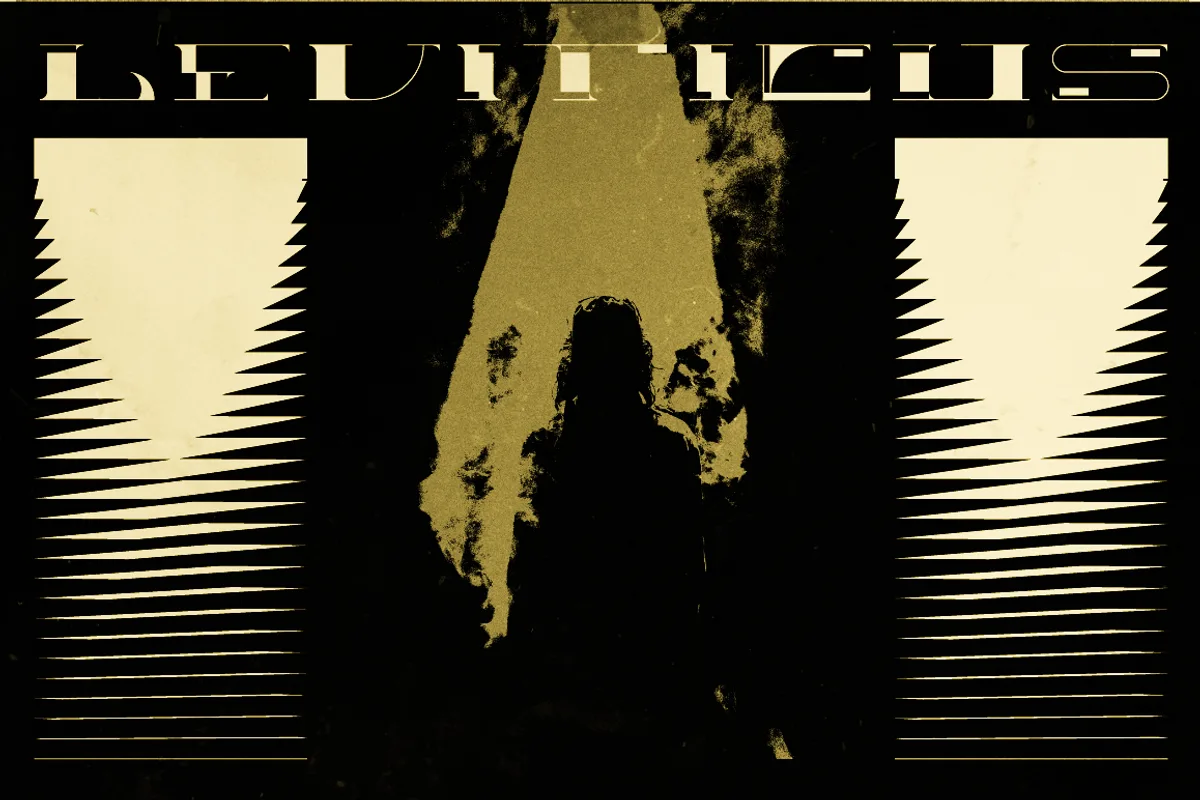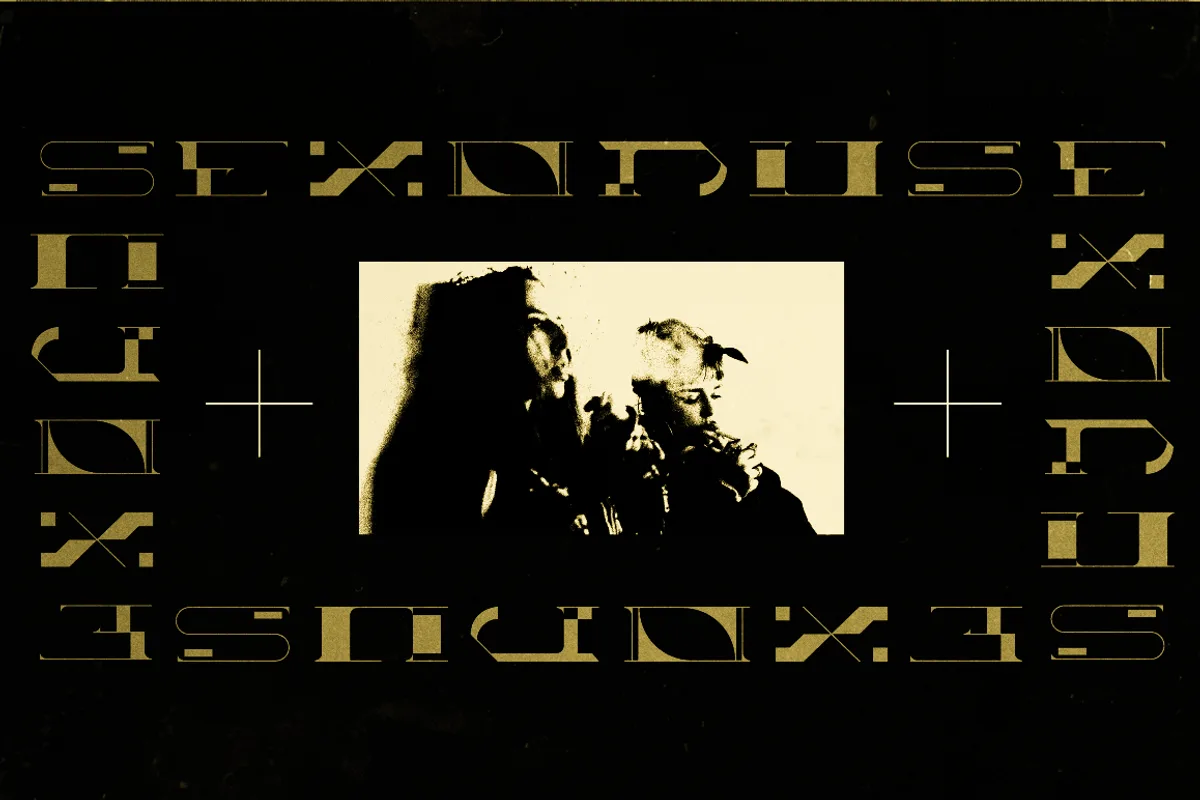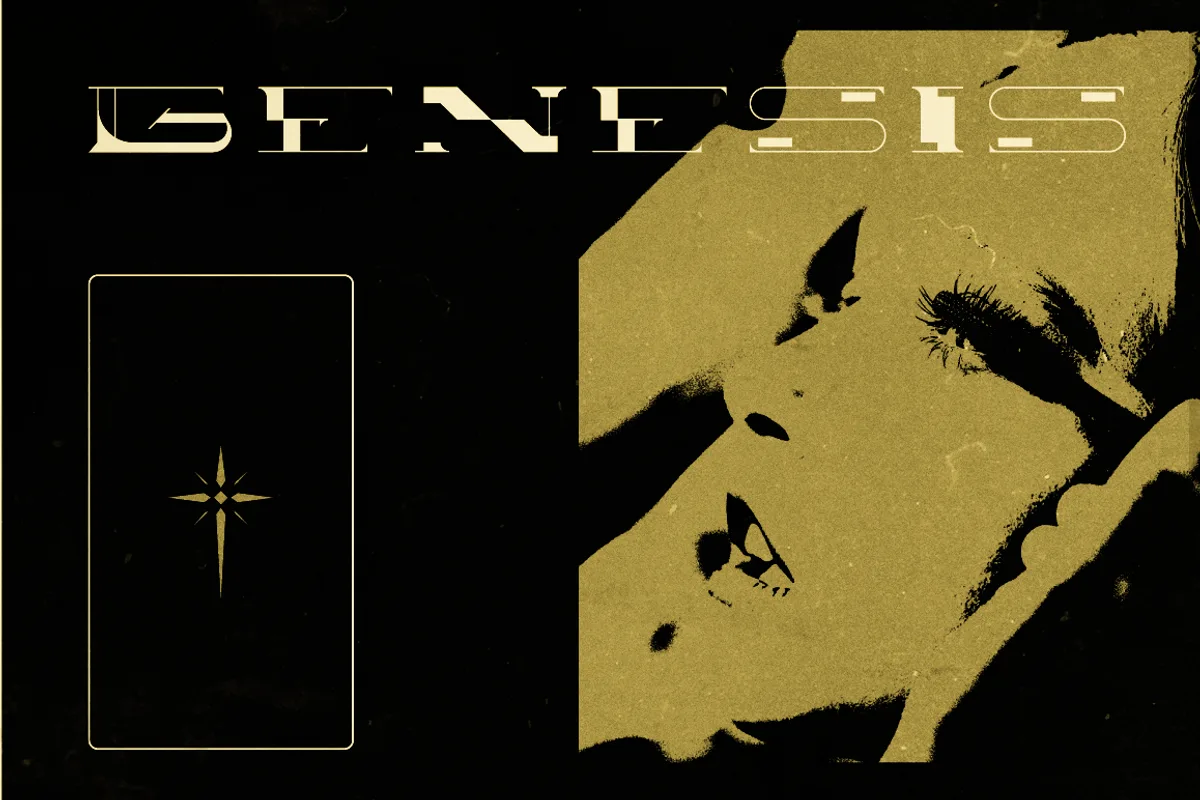
Yeezus is an attempt for an essential of rave subculture. It is also inspired by the futuristic and acid designs from curent visual trends. It is one of the modern headline fonts that you find a special, radical and a pleasured to use.